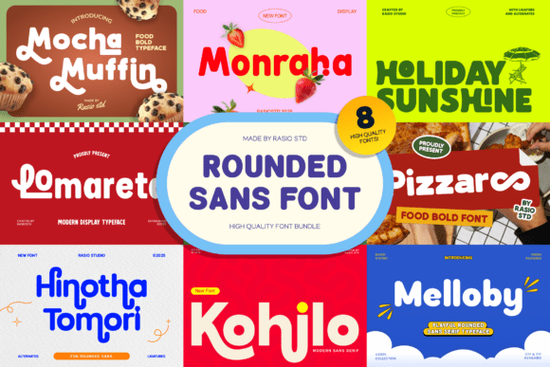
If you're looking for a friendly, modern typeface that works well across branding, social graphics, and print-on-demand projects, the Rounded Sans Bundle Font is a solid choice. It’s not overly cutesy or hard to read at small sizes instead, it strikes a relaxed balance between approachability and clarity. Designed with soft curves and open letterforms, it feels warm without sacrificing legibility. That makes it especially useful if you’re crafting packaging for a small-batch food brand, designing kids’ activity sheets, or building a cohesive visual identity for a lifestyle blog or Etsy shop.
Who is this font bundle actually good for?
This isn’t just another “rounded font” collection thrown together for trend’s sake. Each typeface in the bundle was intentionally drawn for display use meaning headlines, logos, posters, and short-form text where personality matters most. It’s less suited for long paragraphs (like a book or newsletter body), but shines in contexts where tone and recognition matter: think Instagram story headers, T-shirt designs, café menu boards, or greeting card titles.
Small business owners often tell us they struggle to find fonts that feel human not robotic, not too corporate, not too childish. The Rounded Sans Bundle lands right in that sweet spot. It reads as confident but kind, modern but not cold. If your brand voice leans toward “helpful neighbor” rather than “polished executive,” this set fits naturally.
What’s included and how do the fonts differ?
The bundle includes multiple weights and styles (like regular, bold, and sometimes italic or condensed variants), giving you flexibility without needing to mix unrelated families. You’ll get consistent spacing, matching punctuation, and harmonized proportions something that’s easy to overlook until you try pairing mismatched fonts and notice awkward gaps or uneven rhythm.
Unlike single-style fonts, this bundle lets you build hierarchy without switching typefaces entirely. For example, use the light weight for a subtle tagline, the bold for your main headline, and the rounded inline variant for a playful accent word. That kind of consistency helps your designs feel intentional even when you’re working fast.
How does it compare to other popular rounded sans options?
It shares some DNA with Bisked, which also leans into soft geometry but has a slightly more structured, almost hand-drawn warmth. If you like Agoorack, you’ll recognize the same emphasis on friendliness though Agoorack leans more toward quirky charm, while Rounded Sans keeps things cleaner and more neutral. Pretzel brings extra bounce and playfulness, making it great for kids’ projects; Rounded Sans is a bit more versatile across age groups. And compared to Balimo, which has stronger calligraphic influence, Rounded Sans stays firmly in the sans-serif lane no swashes, no flourishes, just smooth, confident curves.
Real-world uses that work well
- Food & beverage labels Its soft shapes echo organic, handmade, or artisanal vibes (think kombucha bottles or cookie packaging).
- Educational printables Teachers and homeschoolers use it for worksheets and flashcards because it feels inviting, not intimidating.
- Social media banners and stories Stands out in feeds without clashing with photos or illustrations.
- Branding for wellness, parenting, or creative coaching businesses Communicates care and clarity without sounding clinical.
- DIY craft templates Works beautifully on vinyl cut files, embroidery patterns, and SVG bundles meant for Cricut or Silhouette users.
One thing to keep in mind: because it’s optimized for display, avoid using it below ~14pt in digital layouts or under ~10pt in print unless you’re testing contrast and readability carefully. It’s designed to be seen not scanned.
If those match up, the Rounded Sans Bundle Font is worth adding to your go-to toolkit. Try pairing it with a clean, neutral serif (like Playfair or Lora) for contrast in branding systems or layer it with simple line art and soft color palettes for instant cohesion.